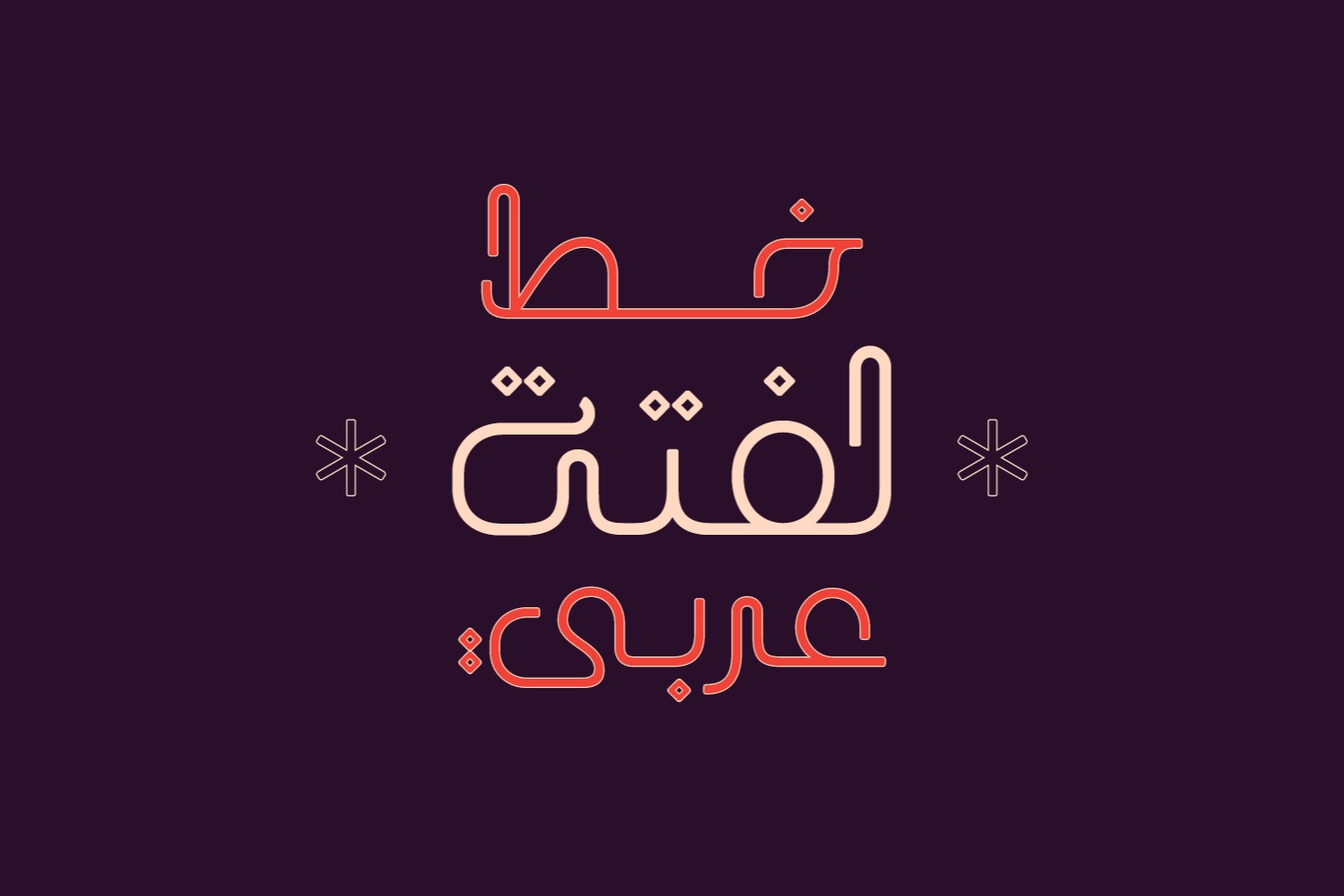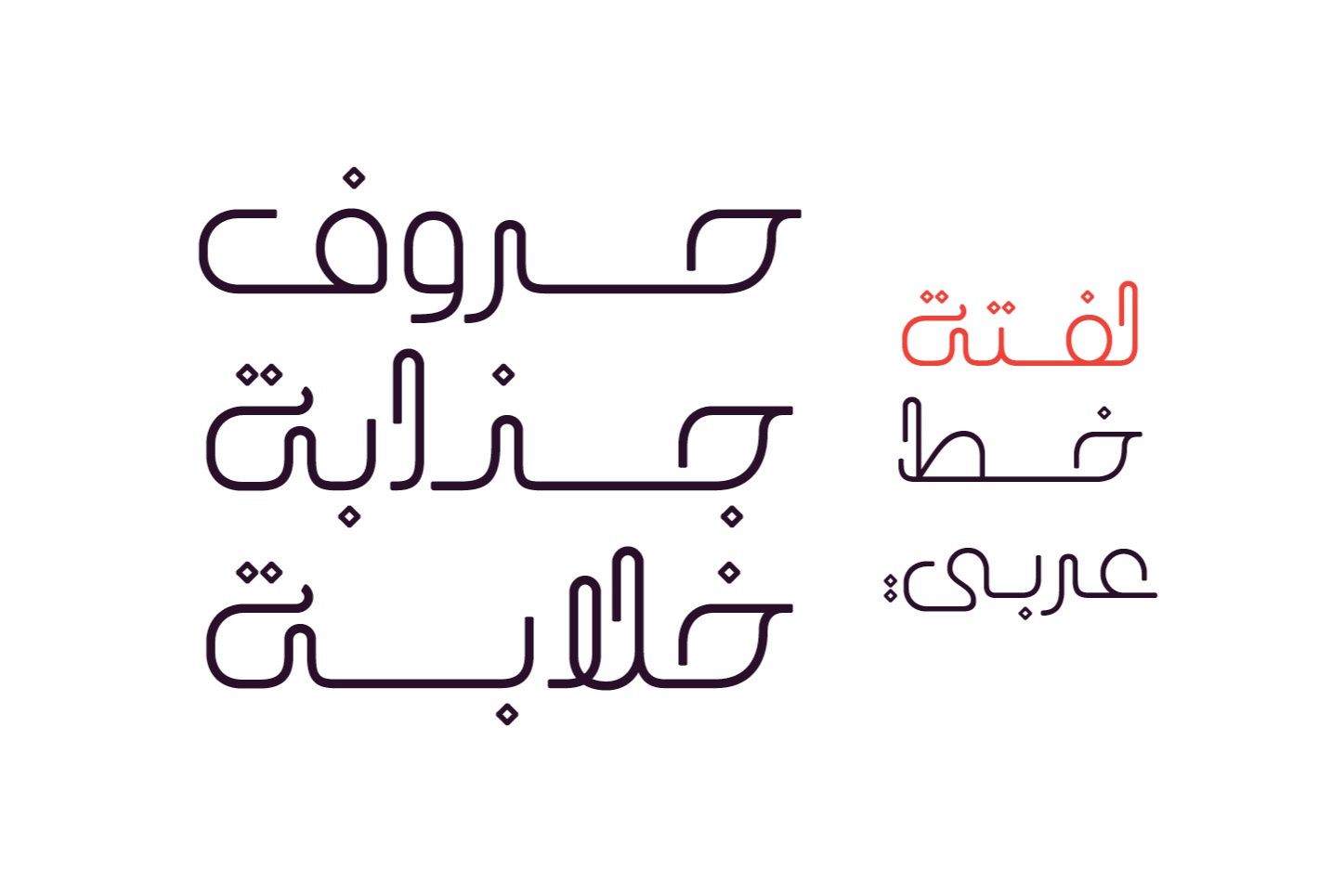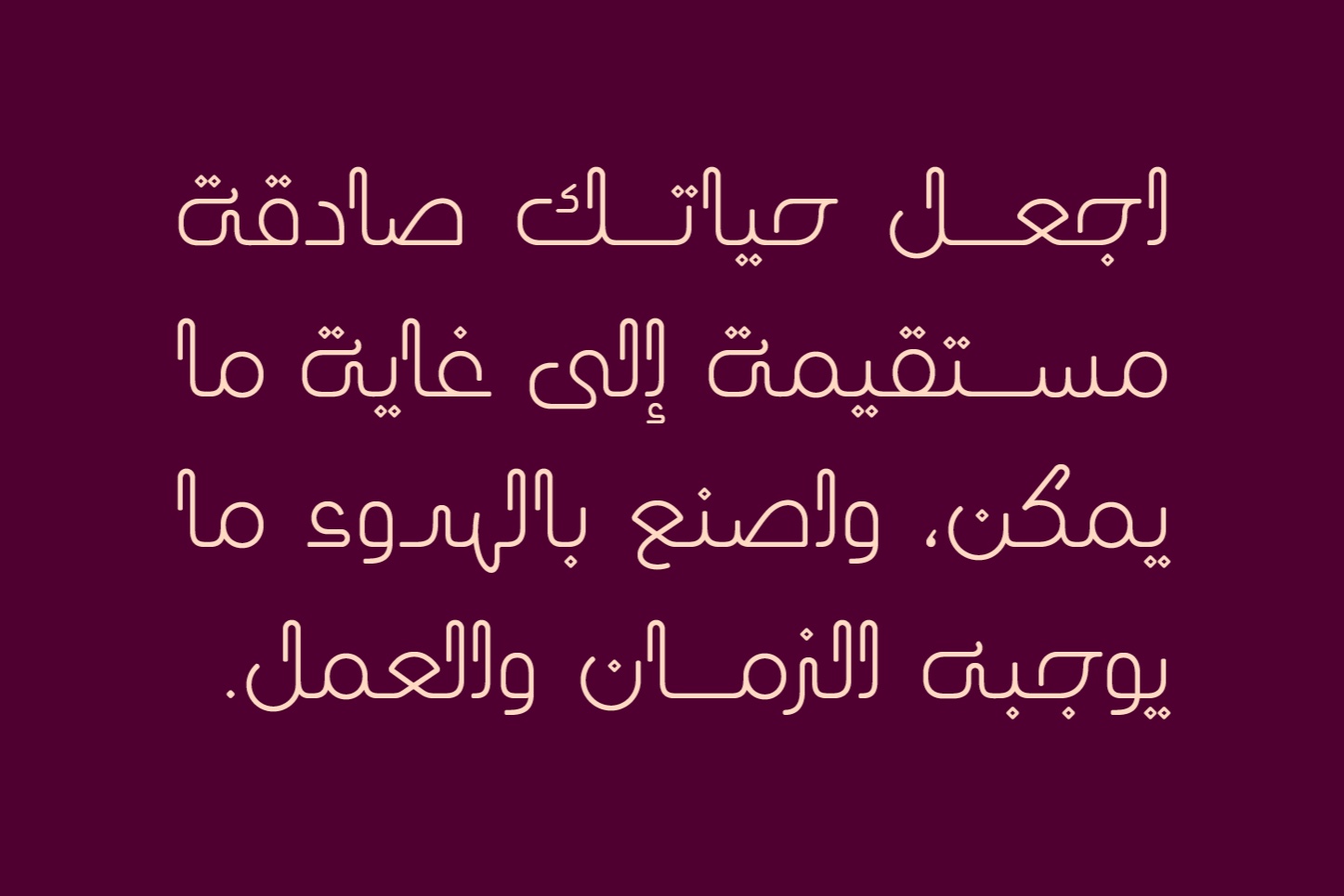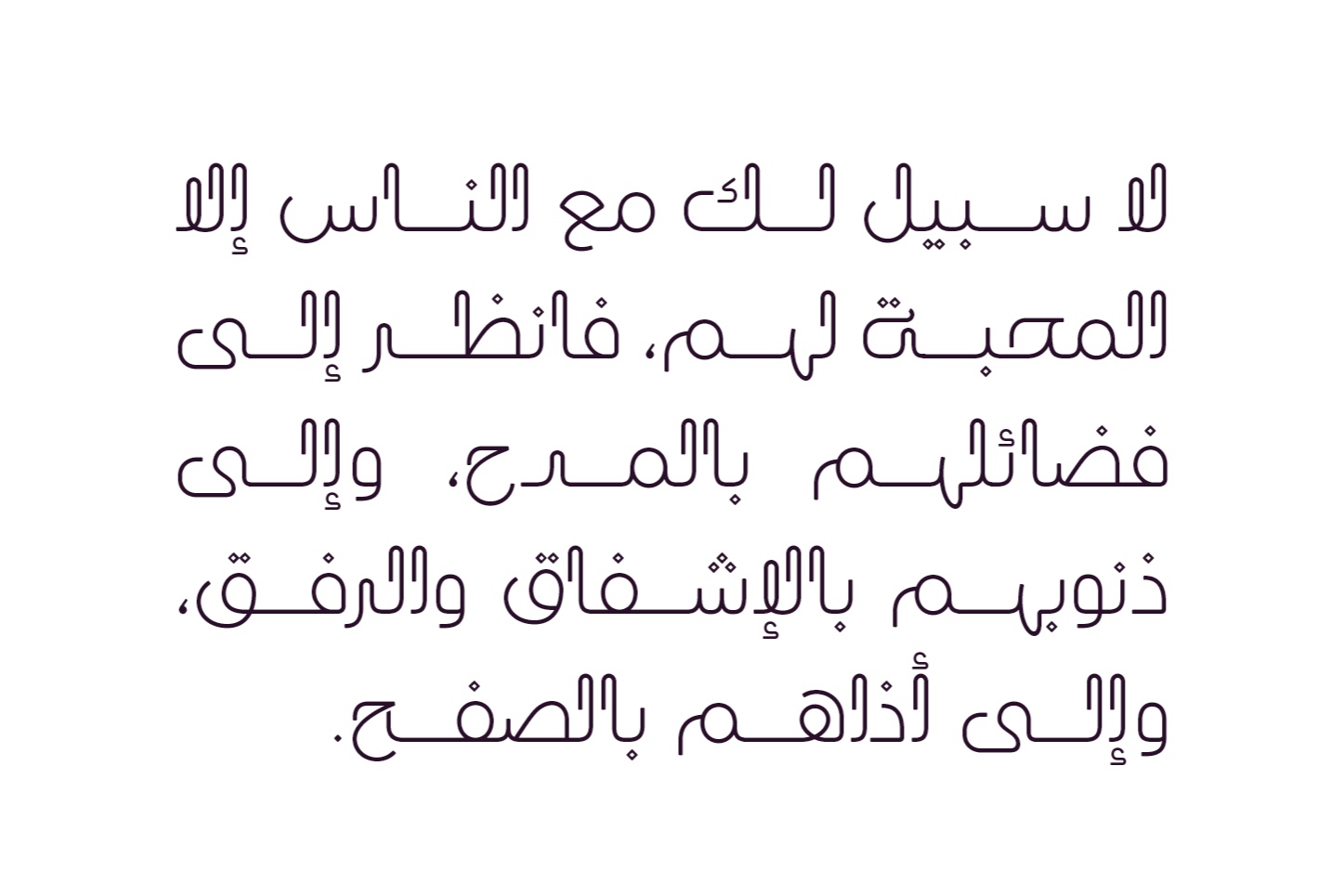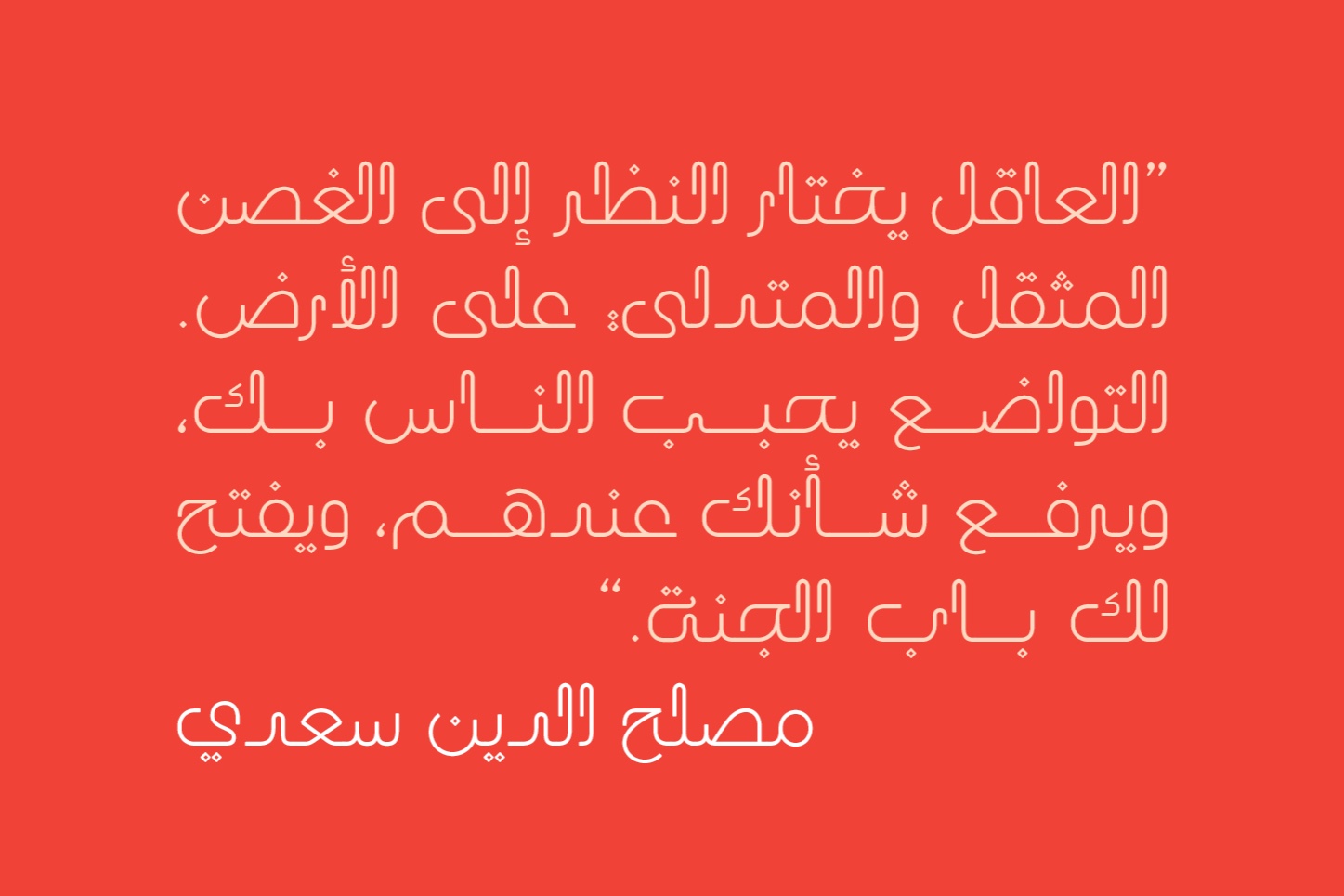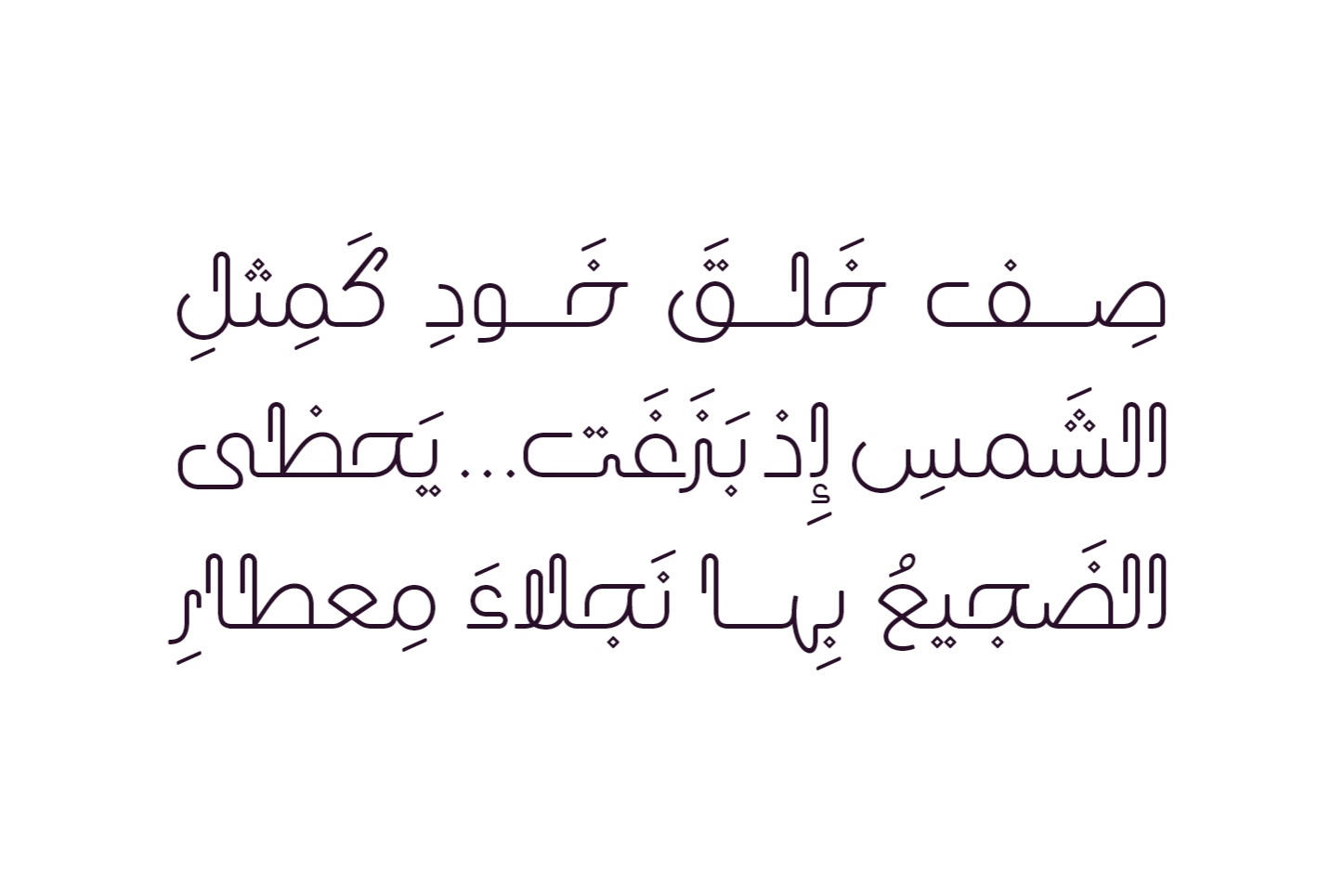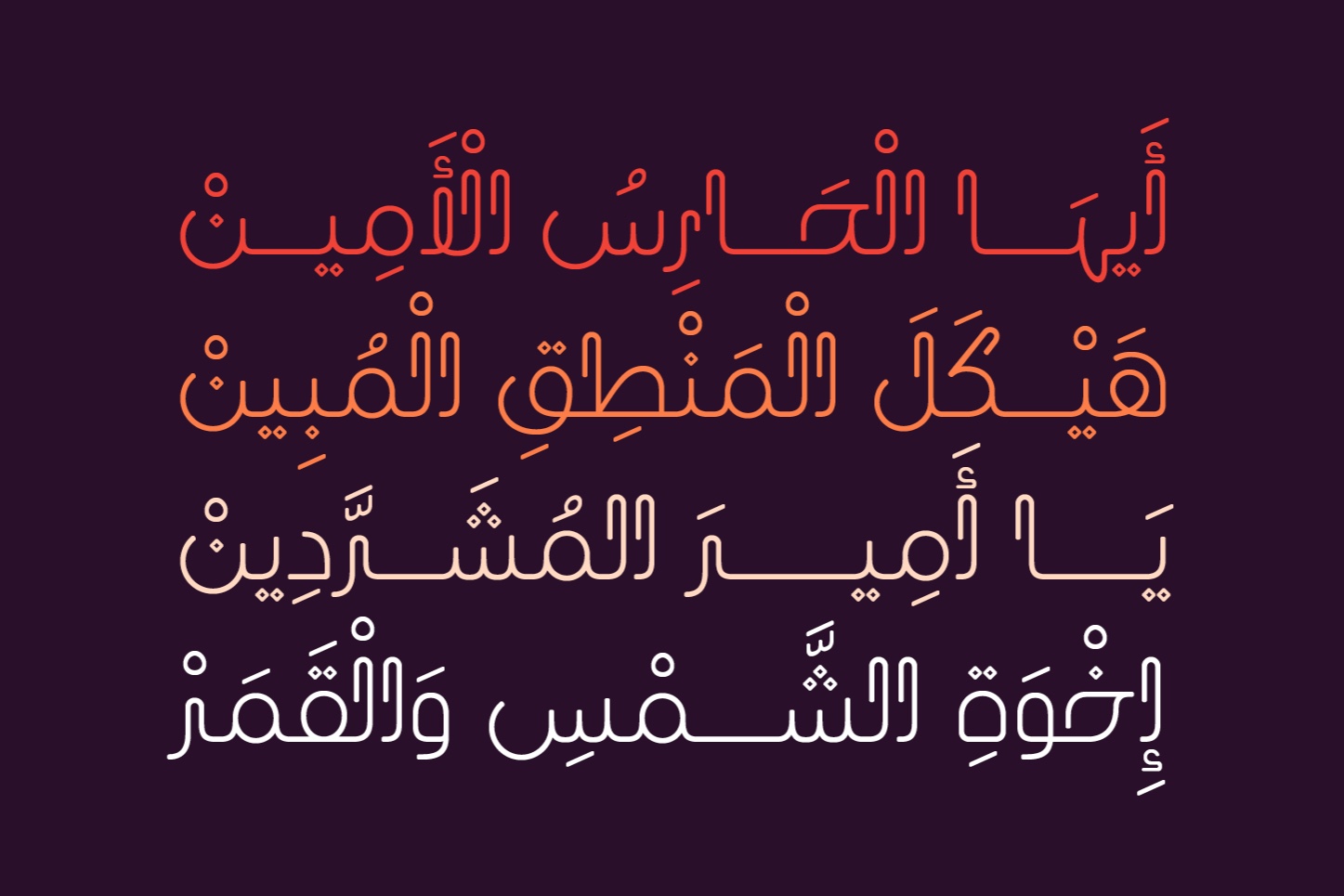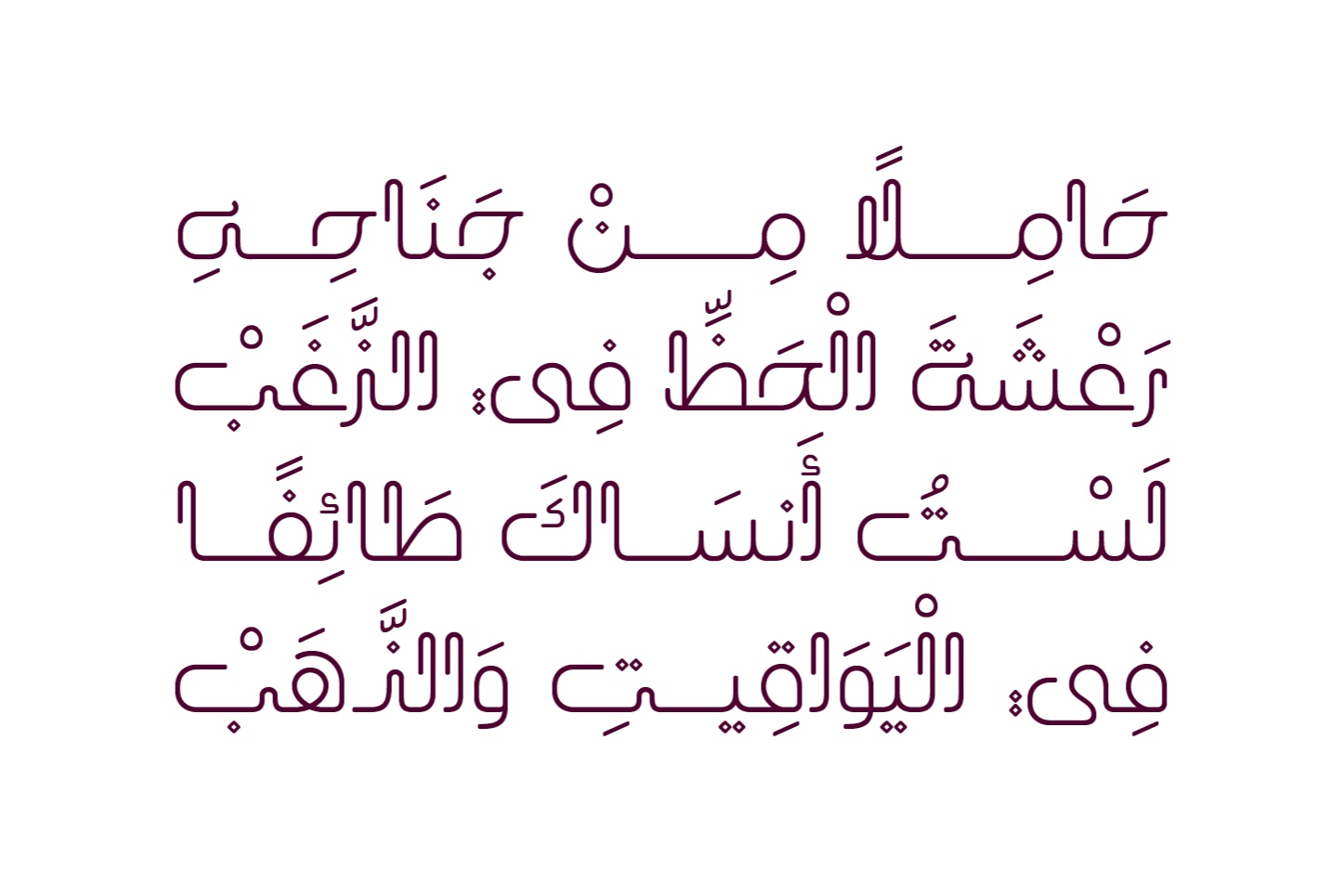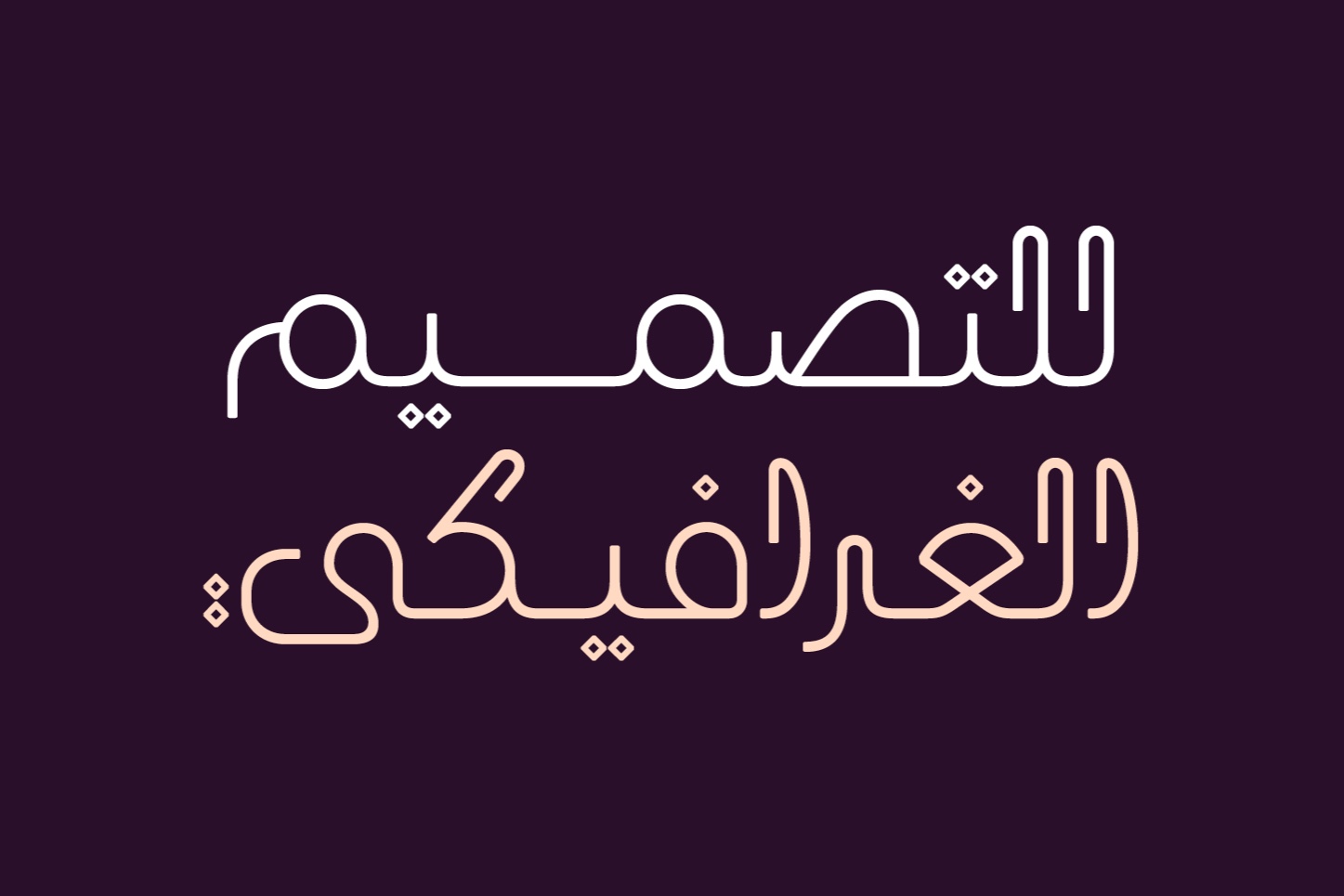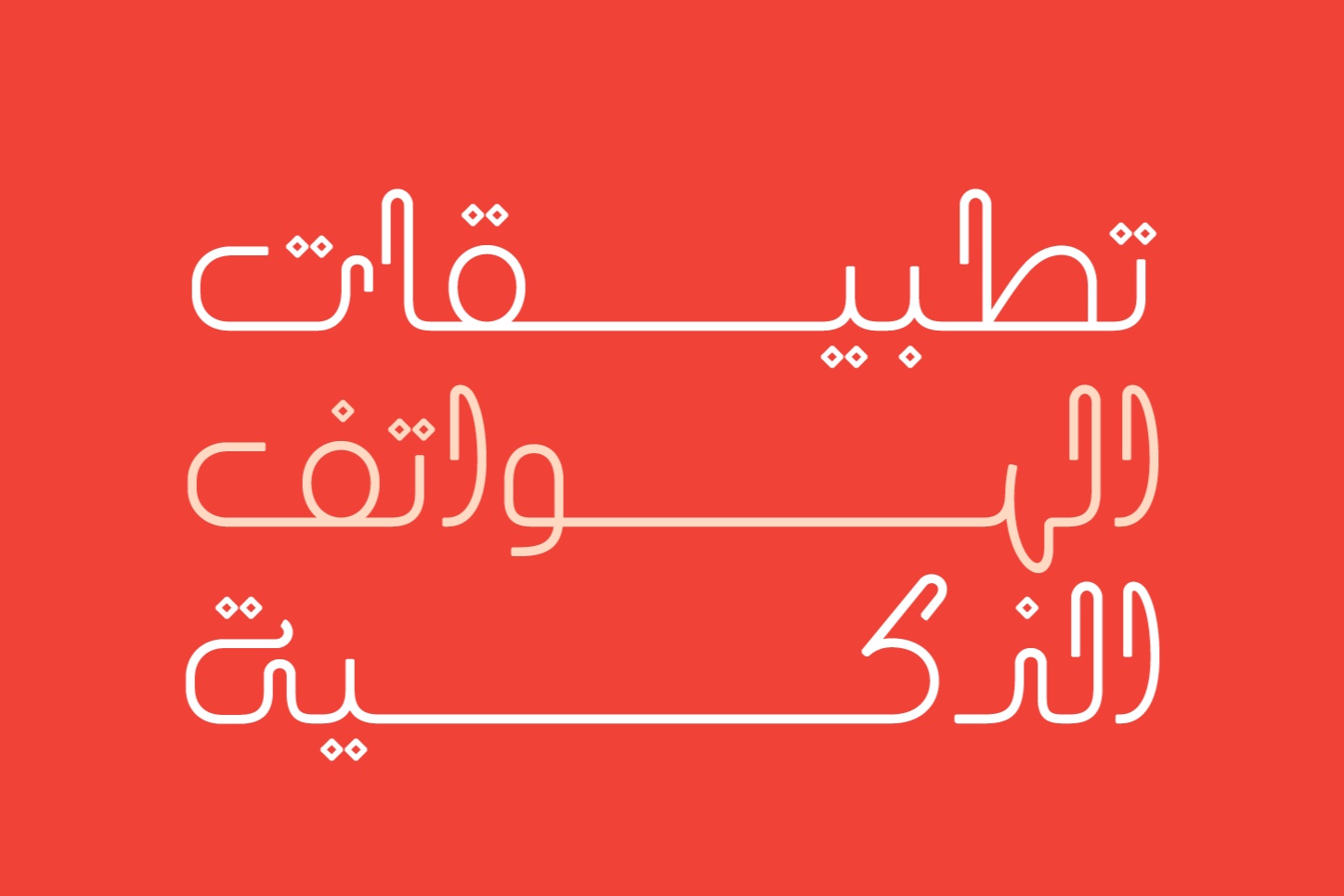
Laftah (the Arabic word for 'Turn') is an Arabic display font that uniquely features slender stems fused with contemporary aesthetic. Laftah is suitable for a wide range of modern design applications, including websites, advertising, print media, mobile apps, and UI/UX Arabic typography.